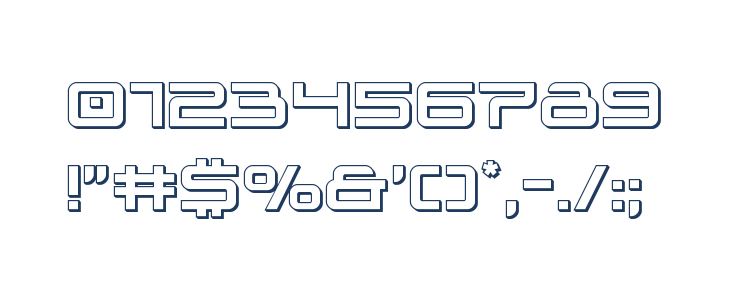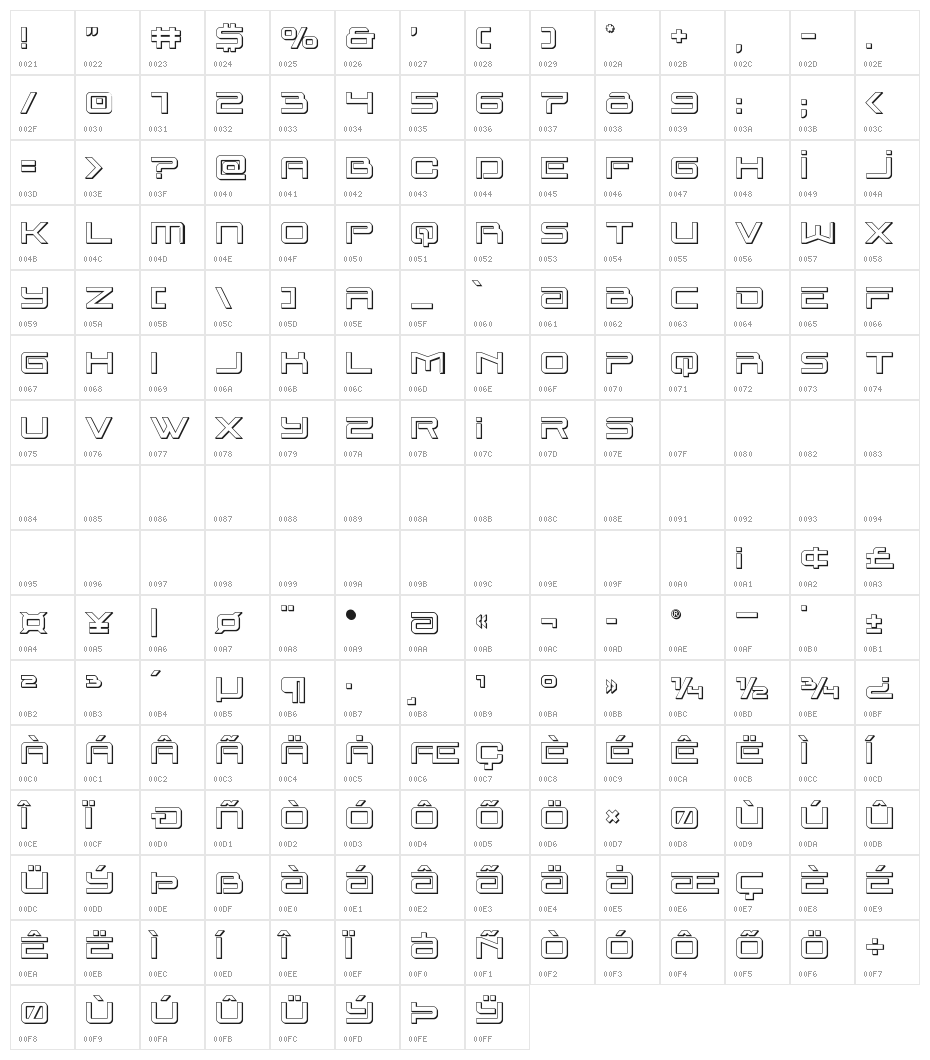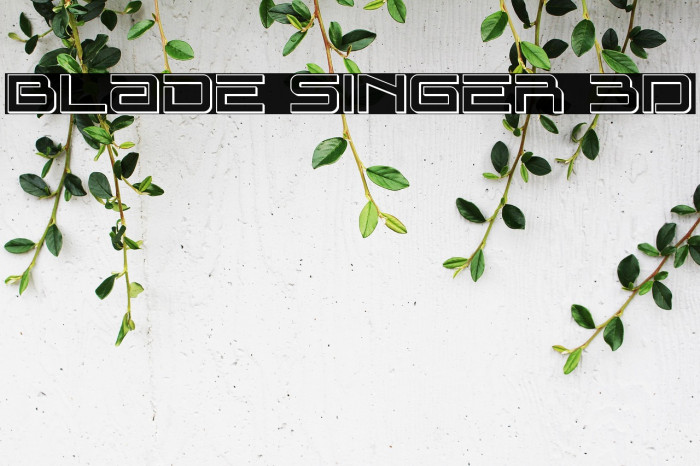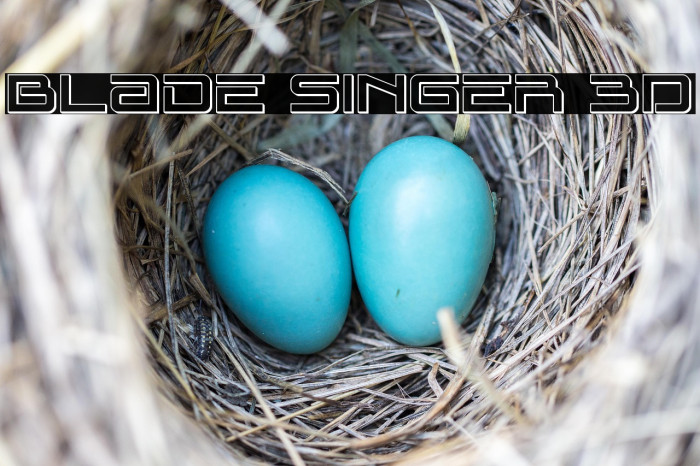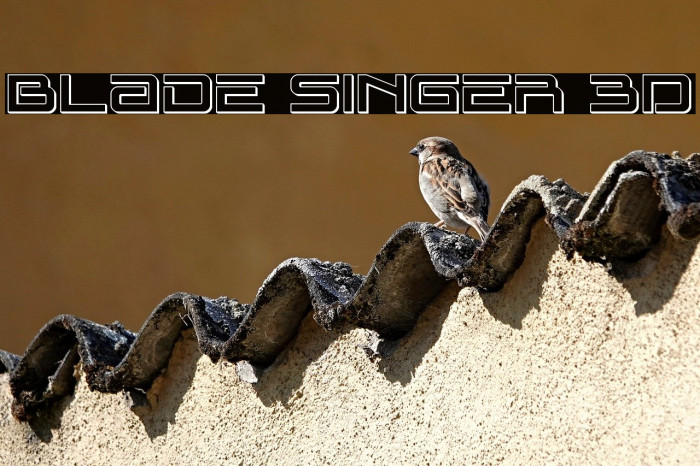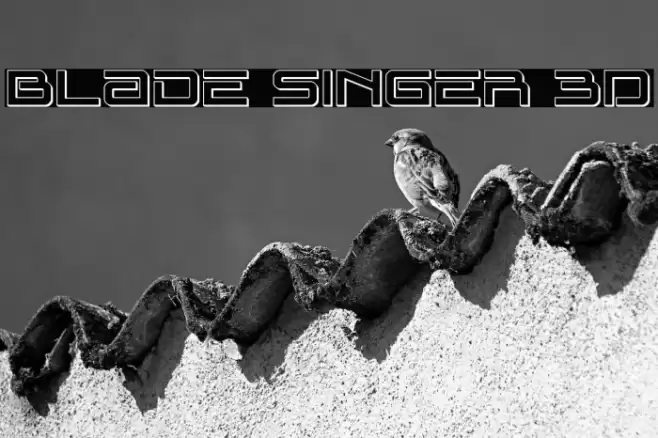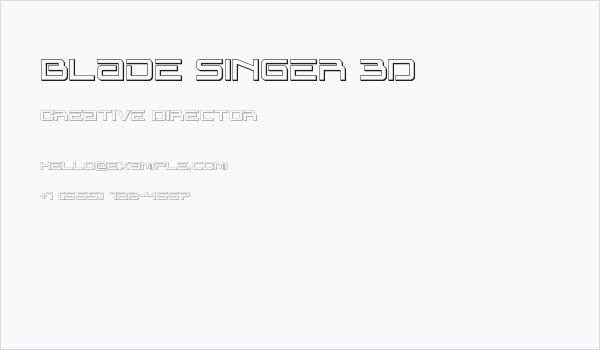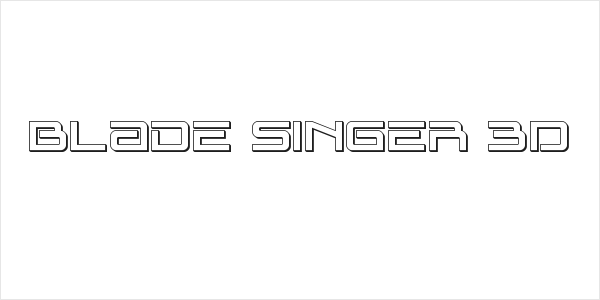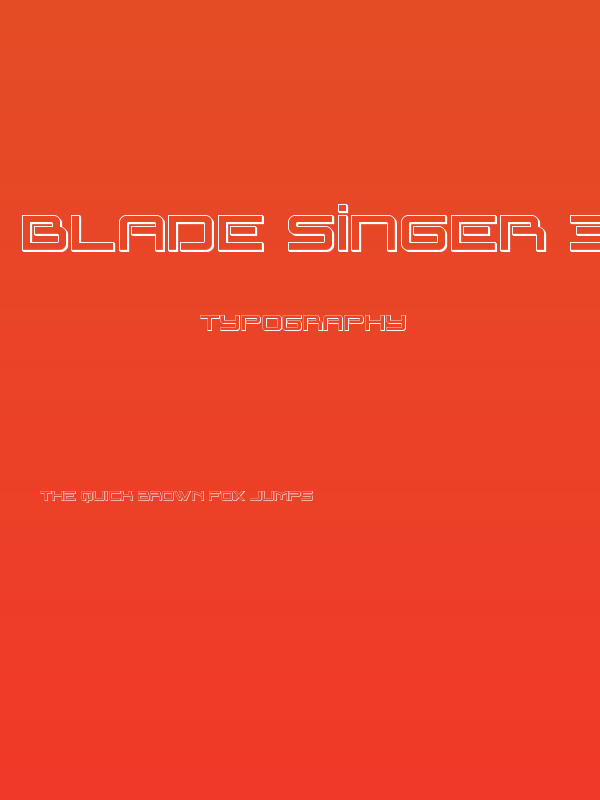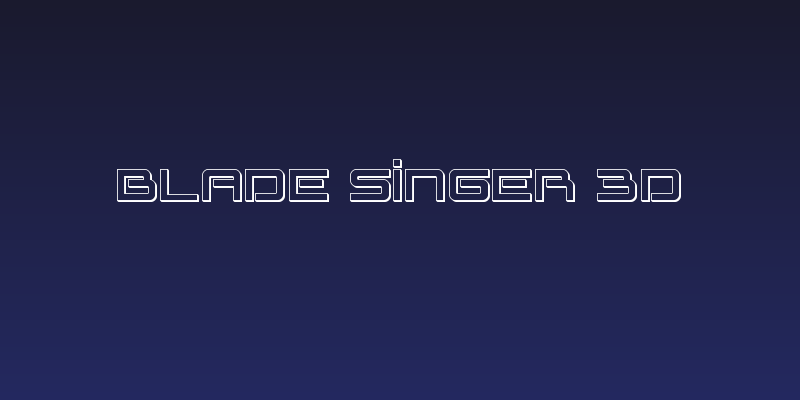
Blade Singer 3D Font
Blade Singer 3D Description
This font features a futuristic and geometric design, characterized by its sharp angles and clean lines. Each character is outlined, giving it a three-dimensional appearance that stands out on the page. The uppercase and lowercase letters maintain a consistent style, with a uniform height and width that enhances readability. The numerals and special characters are designed to match the overall aesthetic, making the font versatile for various applications. Its unique style is both modern and eye-catching, suitable for projects that require a bold statement.